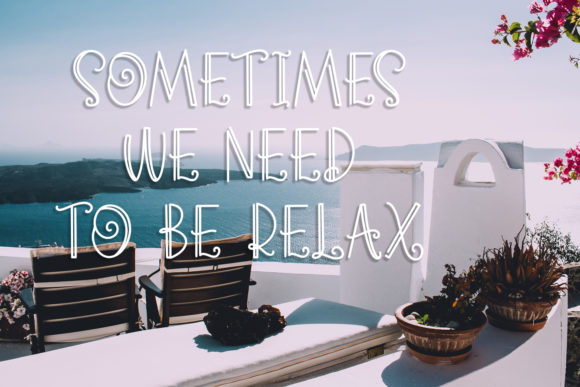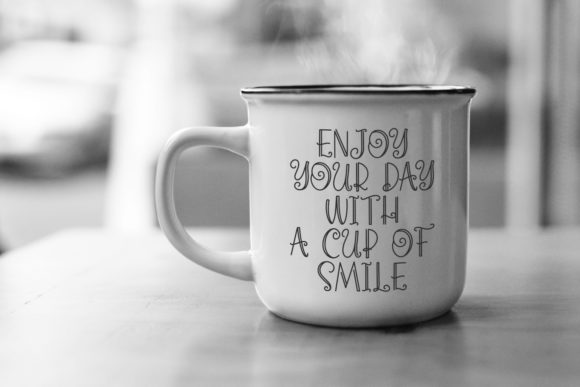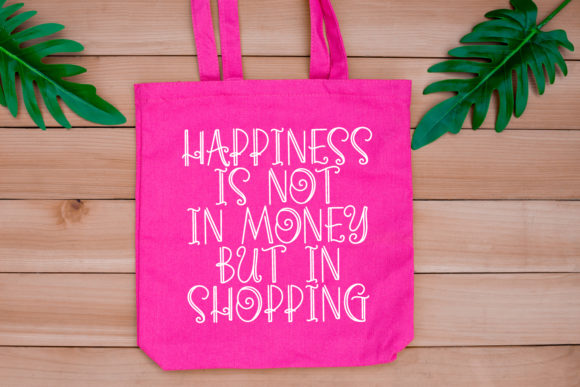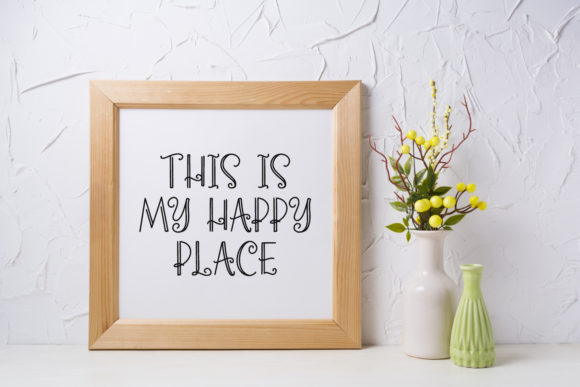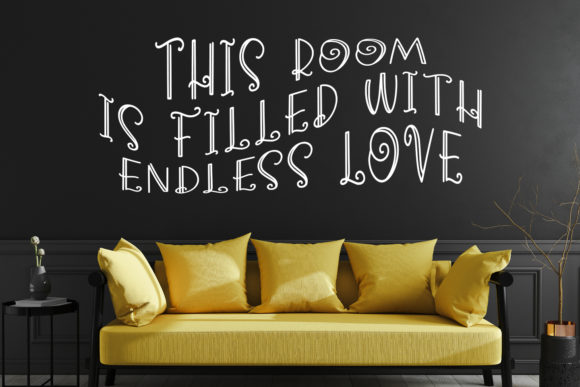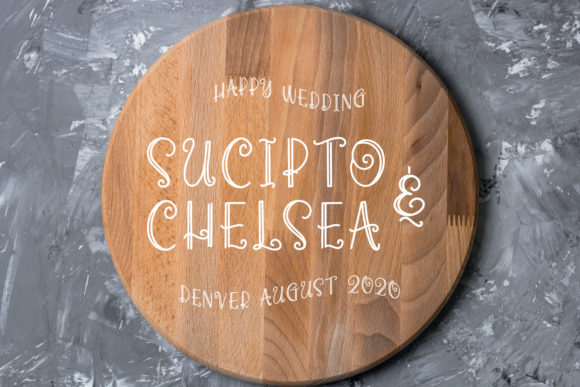
Introduction to Cherry Parsley Font
Have you ever stared at a blank canvas, feeling like a spark of creativity is just out of reach? For many designers, the blank page can be a daunting challenge. But what if you had the perfect tool to ignite your imagination and bring your ideas to life? Enter the Cherry Parsley Font, a stunning handwritten font that’s sure to captivate your senses and elevate your creative projects.
With its high-quality design and versatility, the Cherry Parsley Font is a valuable resource for designers looking to add a personal touch to their work. Whether you’re creating beautiful stationery, eye-catching social media posts, or gorgeous wedding invitations, this font is sure to be a game-changer. And the best part? It’s available for free download, making it an accessible design resource for creatives of all levels.
From transparent backgrounds to intricate details, the Cherry Parsley Font offers endless possibilities for your next creative project. So why settle for ordinary when you can have extraordinary? Dive into the world of Cherry Parsley Font and discover a world of limitless design potential.
Key Features of Cherry Parsley Font
- High-quality design resource ideal for creative projects requiring elegant typography.
- Unique, hand-drawn style with a transparent background, allowing for seamless integration into various design elements.
- Perfect for use in logos, branding materials, and other visual identity projects where a touch of whimsy and sophistication is desired.
Honest Review: Cherry Parsley Font
As a designer, I’m always on the lookout for high-quality design resources that can elevate my creative projects. The Cherry Parsley Font caught my attention with its unique and elegant style.
What works well with this font is its versatility. ✨ It’s perfect for a wide range of applications, from logo designs to editorial content. The transparent background option also makes it easy to work with, allowing me to customize the font to fit any design scheme.
Here are some of the features that make the Cherry Parsley Font stand out:
- Unique and elegant style that adds a touch of sophistication
- Transparent background option for easy customization
While the Cherry Parsley Font is a great addition to any designer’s toolkit, there are a few limitations to be aware of: ⚠️ The font may not be suitable for very small text sizes, and some users may find the style a bit too ornate.
Overall, I’m impressed with the Cherry Parsley Font. It’s a high-quality design resource that’s perfect for designers looking to add a touch of elegance to their creative projects.
Tips for Getting the Most Out of Cherry Parsley Font
To get the most out of the Cherry Parsley Font, experiment with different font sizes, colors, and styles to find the perfect combination for your design. Use the transparent background to create visually appealing text overlays and graphics.
The Cherry Parsley Font is perfect for a variety of creative projects, including graphic design, digital art, and typography-based designs. Its high-quality design and transparent background make it an ideal choice for designers looking to add a unique touch to their work.